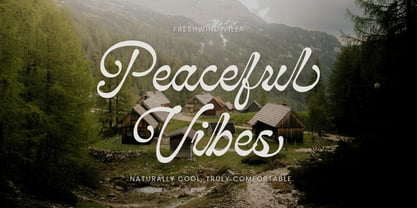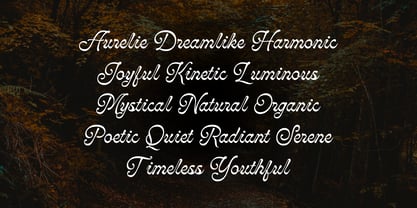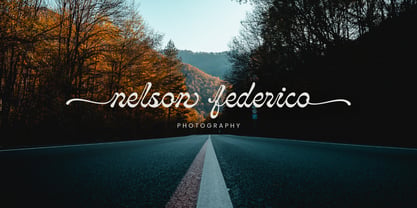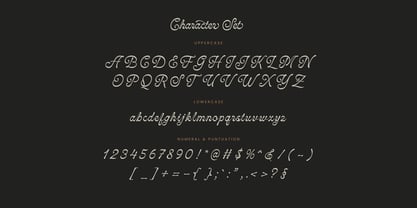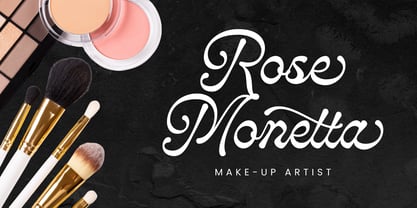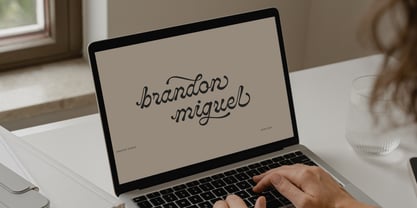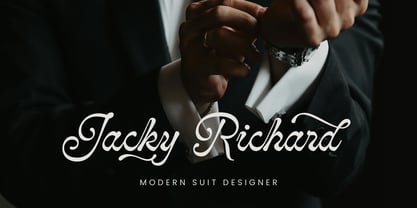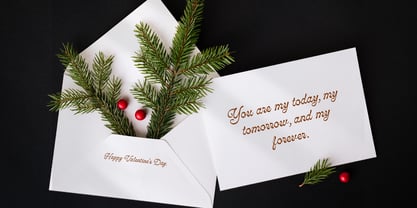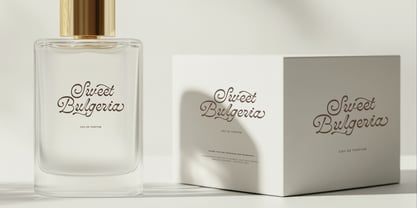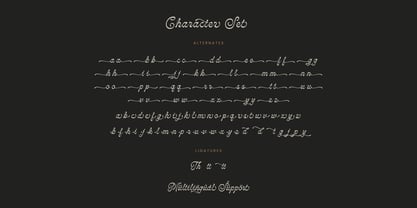
Monthera
La familia tipográfica Monthera fue diseñada por Muhamad Yusron Billah y publicada por Sronstudio. Monthera contiene 1 estilos. Más información sobre esta familia
Monthera is a classy script font that blends elegance with smooth, flowing strokes. Designed to feel refined yet natural, this font is perfect for luxury branding, wedding designs, invitations, logos, packaging, and sophisticated editorial layouts. With its graceful curves and timeless character, Monthera adds a touch of charm and exclusivity to any design project. What’s Included: - Alternates & ligatures - Numerals & punctuation - PUA encoded for easy access - Multilingual support - Works seamlessly on Mac & Windows Thank you very much